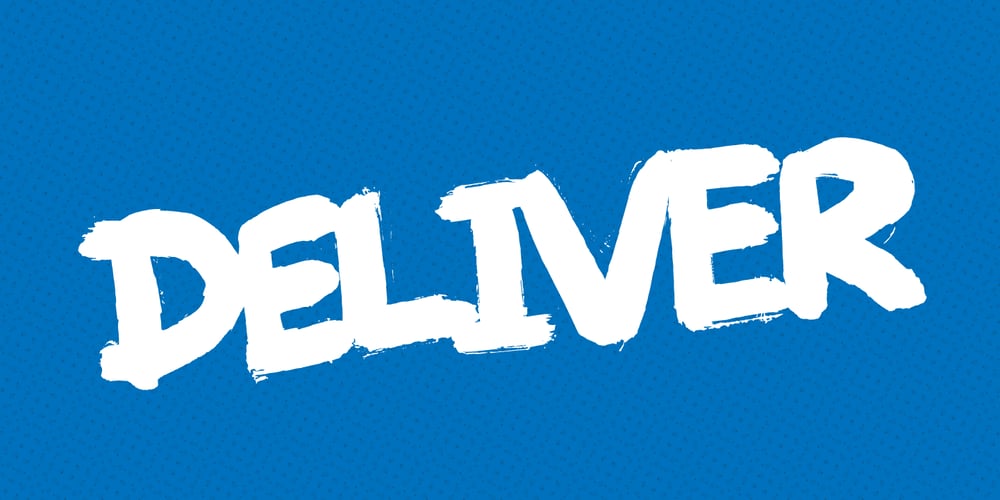
Deliver Font Family was designed by Jakob Fischer and published by PizzaDude.dk. Deliver contains 1 styles and family package options. I am here to deliver! I used a semi dry brush for this font, and when views at large sizes you can really enjoy the brush traces. The font keeps the authentic feeling of something hastily written with a brush. Along with he very tight spacing and kerning, it does it job! Quite good for headlines that needs that extra punk, or T-shirts design, posters, Instagram photos or interactive designs!